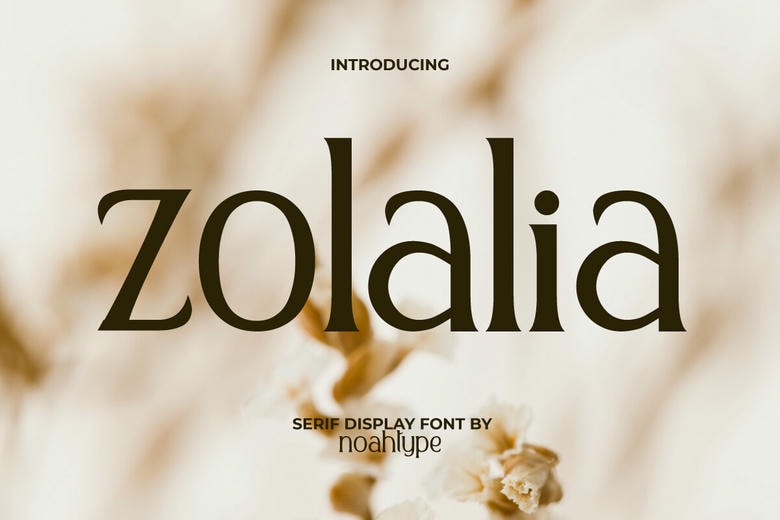
Zolalia Font
Zolalia is a splendid, adaptable serif display typeface that is intended to provide an appearance of carelessly elegant and sophistication. Defined by its minimal and well-proportional letterforms, Zolalia is a sure, modern and breath-taking look, but with an outstanding readability, so it is a sure and stunning option to use in any project.
This flexibility is perfect in the luxury market such as company branding, customized stationery, gilded invitations, powerful product wrappings, and professional web headers. Zolalia would be very suitable to refurbishment and luxury industries such as fashion, jewelry, beauty, fine dining, and publishing.
It has a complete set of upper and lower case basic characters, numbers and punctuation, with extensive multilingual support (including several currency symbols).
Zolalia Serif Font